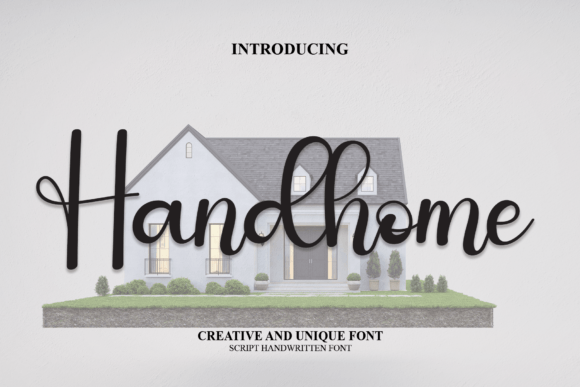
About Handhome Font
Introducing a truly exceptional handwritten font, crafted with a distinctive elegance that sets it apart and makes it an ideal choice for your favorite design projects. This font is not just a typographic tool; it’s a creative masterpiece, inviting you to immerse yourself in its uniquely different and timeless style, ready to infuse your designs with a touch of spectacular allure.
What makes this font stand out is its unparalleled uniqueness. Each character is carefully handcrafted to embody a style that defies convention, offering a fresh and innovative take on the art of typography. It’s not just a font; it’s a design statement, a testament to the boundless possibilities of creative expression.
The handwritten charm of this font adds a personal and authentic touch to your projects, fostering a connection with your audience. It goes beyond the realm of mere letters, transforming each word into a visual journey that captivates and resonates. It’s a font that speaks a language of elegance and refinement.
In a world saturated with trends, this font takes a bold step into timelessness. Its style is not confined to the fleeting preferences of the moment but rather exists as a perennial choice, ensuring that your designs remain relevant and impactful. It’s a font that transcends eras, becoming a timeless companion in your creative endeavors.
Prepare to fall in love with the sheer versatility of this font. It’s a canvas awaiting your creative strokes, ready to breathe life into your branding, invitations, posters, and more. Its adaptability knows no bounds, offering you the freedom to create designs that are nothing short of spectacular.
In summary, this unique handwritten font is a celebration of creativity and elegance. Its distinctiveness, coupled with a timeless allure, makes it an invaluable asset for your design toolkit. So, let the love affair begin as you explore the endless possibilities this font brings to your projects, turning each design into a truly spectacular work of art.